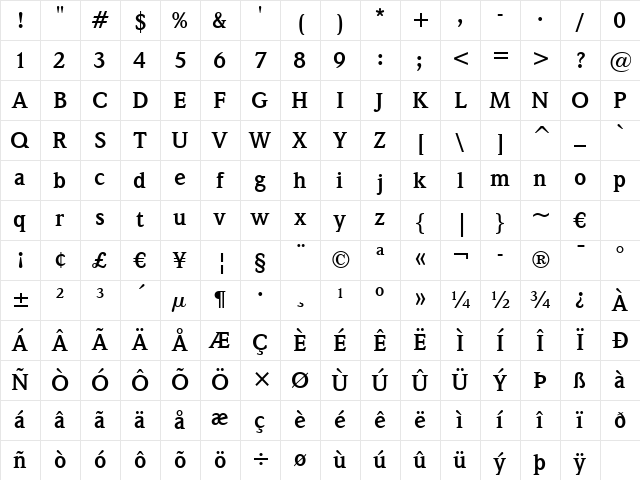
Complete Weidemann Bk BT Bold glyph index. Displaying only characters natively supported by Weidemann Bk BT Bold font.
Weidemann Bk BT is a composed and adaptable typeface that performs quietly and consistently across a wide range of design contexts. Its bold stroke weight gives it real presence on the page.